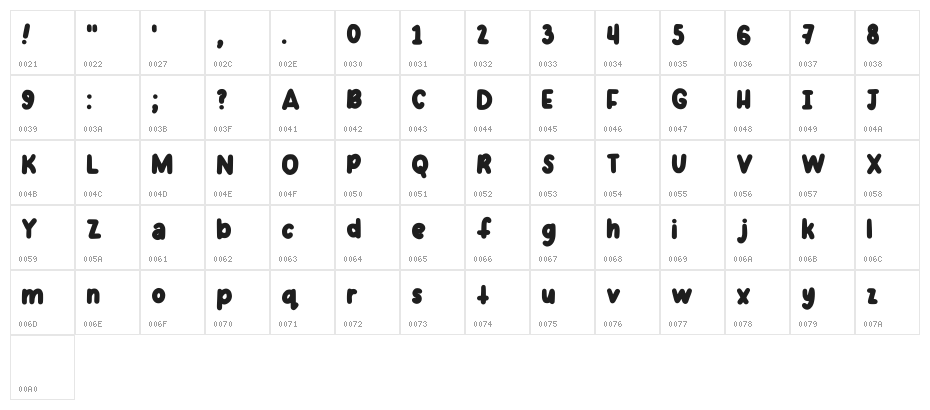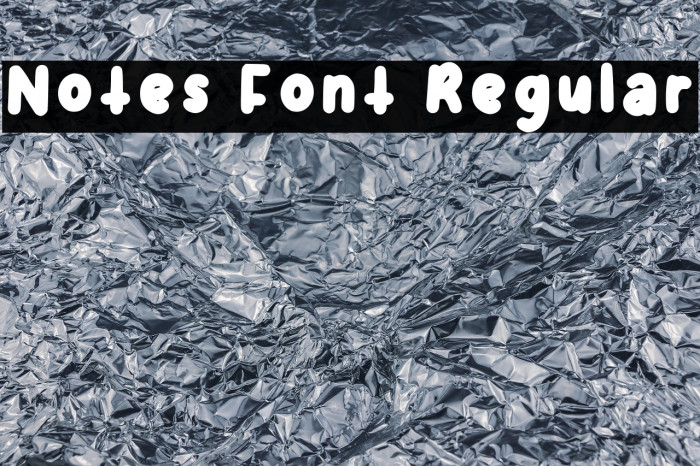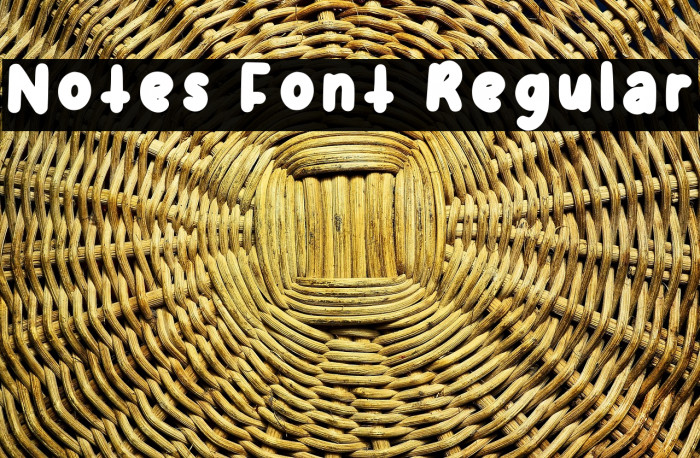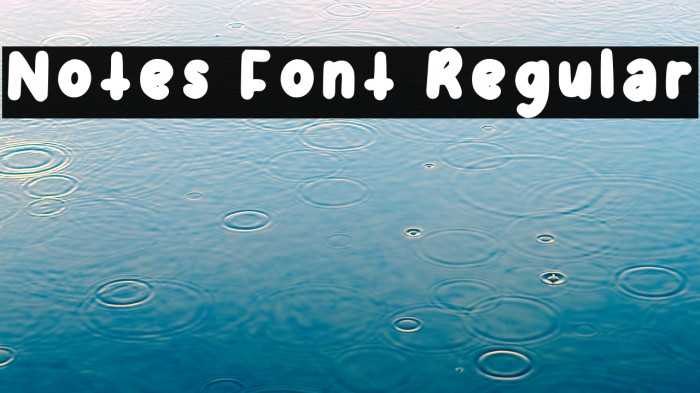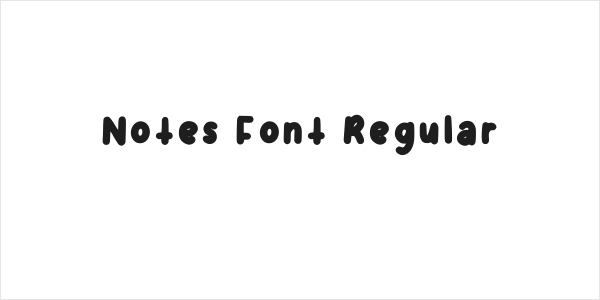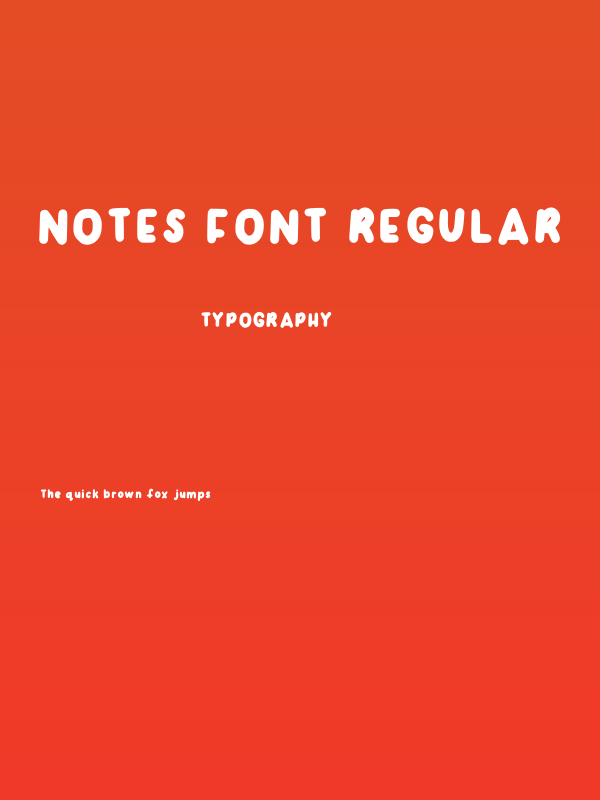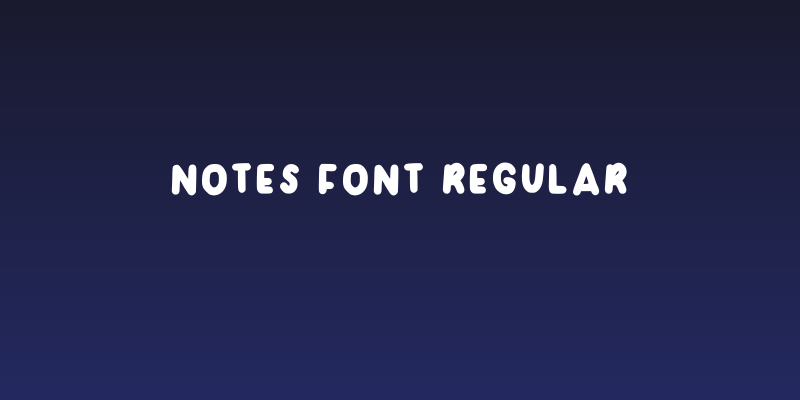
Notes Font Regular Font
This font features a playful and rounded style, characterized by its bold and thick strokes. The letters are uniformly rounded, giving a friendly and approachable appearance. The uppercase and lowercase letters maintain a consistent weight, contributing to a cohesive look. The numbers and special characters follow the same design principles, ensuring uniformity across all characters. The overall style is casual and informal, making it suitable for projects that require a fun and engaging aesthetic.
Proposed ProjectsIdeal for children's books, playful branding, casual invitations, and social media graphics.